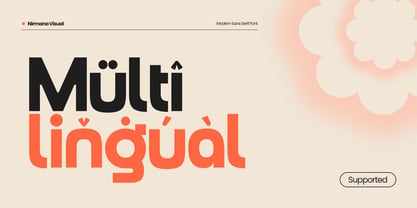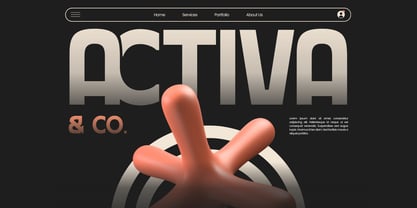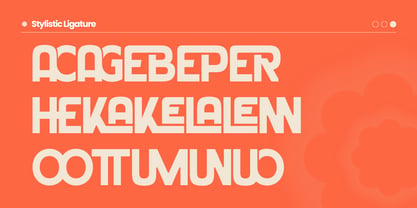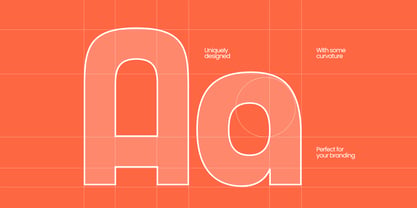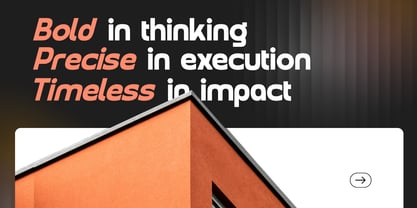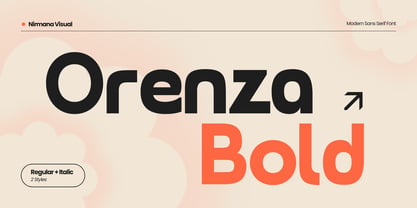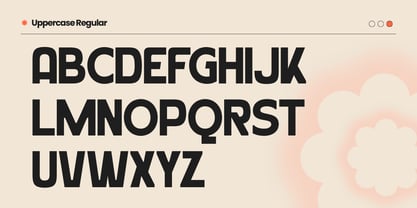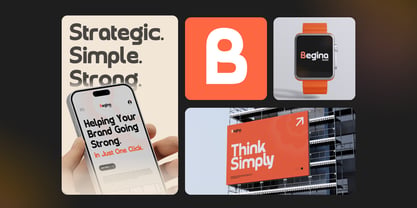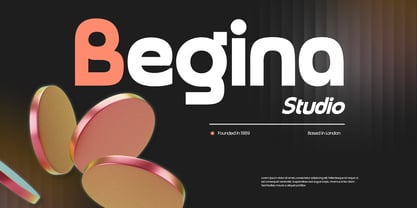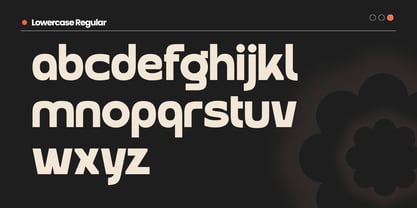
Orenza Bold
by Nirmana Visual
The Orenza Bold Font Family was designed by Sigit Dwipa and published by Nirmana Visual. Orenza Bold contains 2 styles and family package options. More about this family
Orenza Bold is a modern and professional corporate logo font designed to make every word stand out with confidence. Available in Regular and Italic styles, it offers a clean geometric shape with balanced proportions, ideal for creating strong brand identities. Perfect for logo design, website headlines, business cards, and personal branding, Orenza Bold brings elegance and authority to your visual communication with a timeless corporate touch.